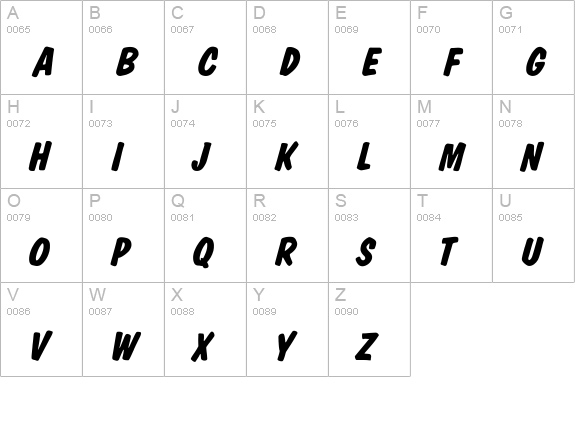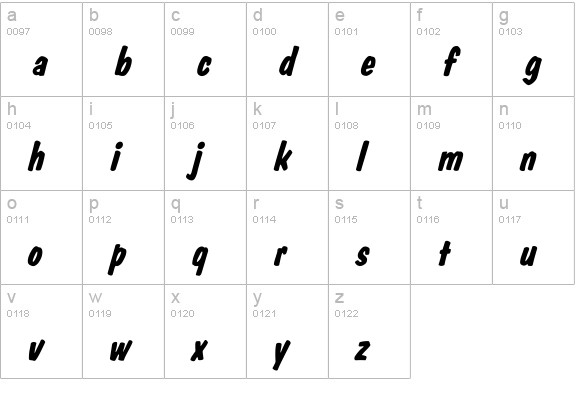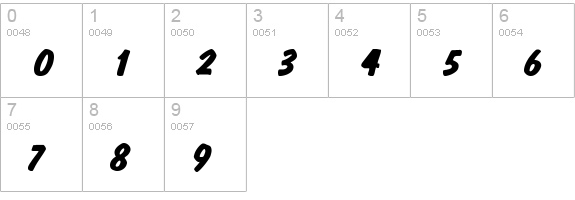
DomCasual-Bold Italic is a strong, high-contrast, italic variant in the DomCasual typeface family \xE2\x80\x94 well suited to headlines, attention-grabbing titles, and strong calls-to-action.
DomCasual-Bold Italic is a playful and eye-catching font that adds a touch of whimsy to any design. Its bold and italicized style makes it perfect for headlines, titles, and other attention-grabbing text. This unique font combines a casual feel with a modern edge, making it versatile for a variety of projects. The best part? DomCasual-Bold Italic is available for free download at FontsMarket.com. It offers a great opportunity for designers and creatives to access a high-quality font without any cost. Whether you're working on a poster, logo, or website design, DomCasual-Bold Italic can bring a fun and dynamic element to your project. Don't miss out on the chance to enhance your designs with this free and stylish font!